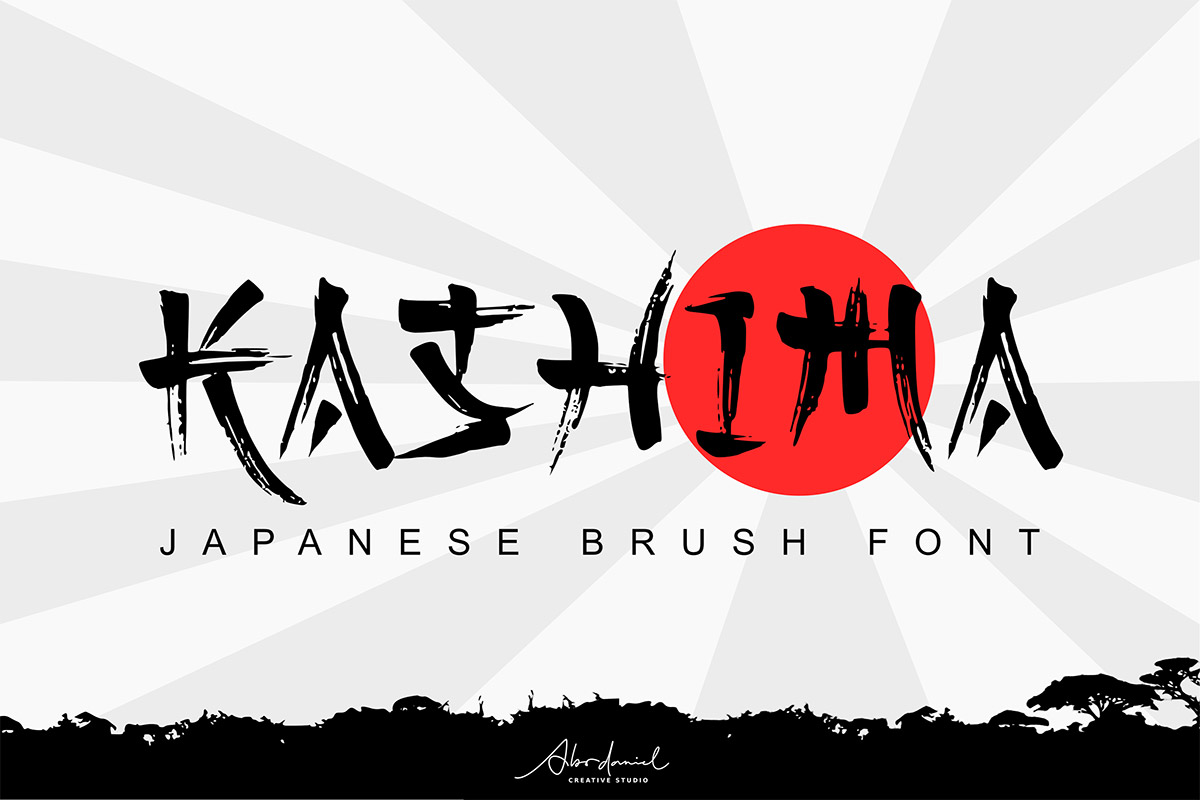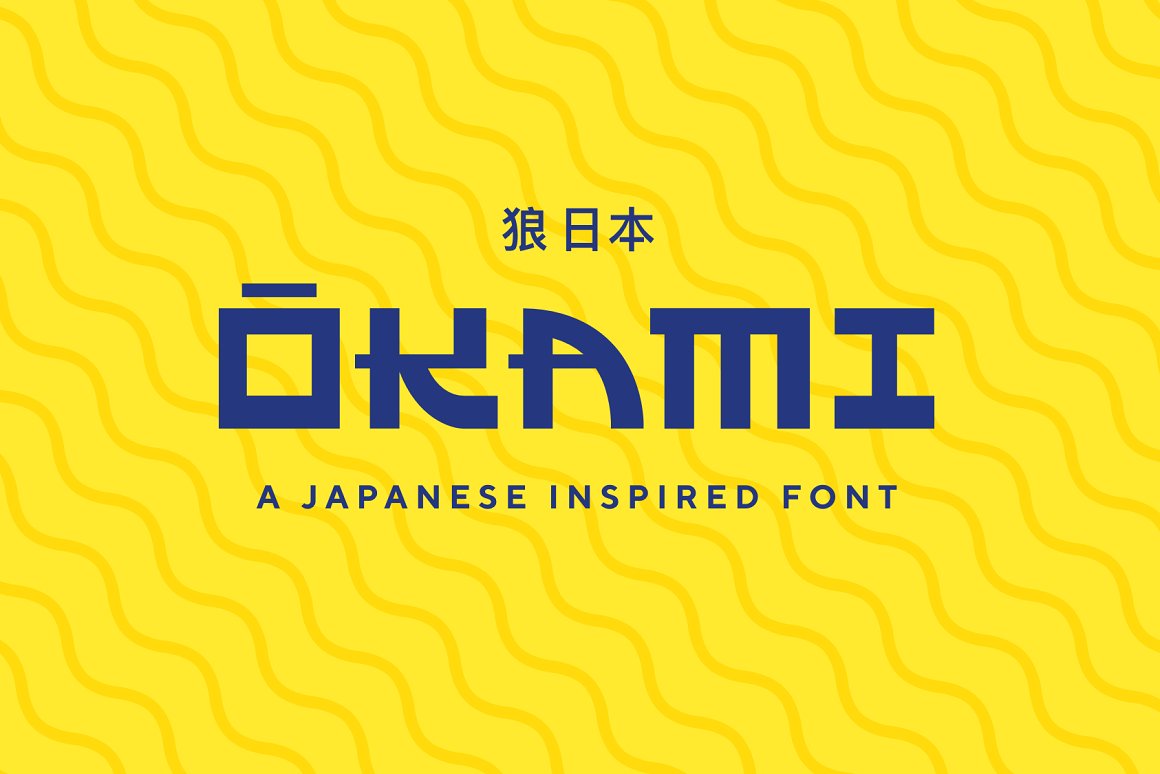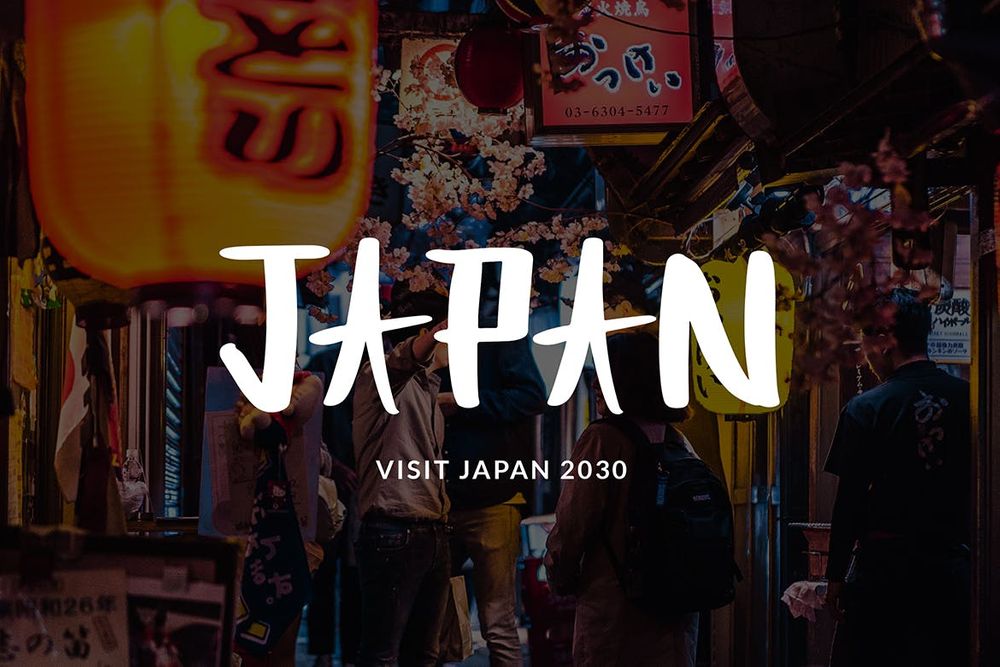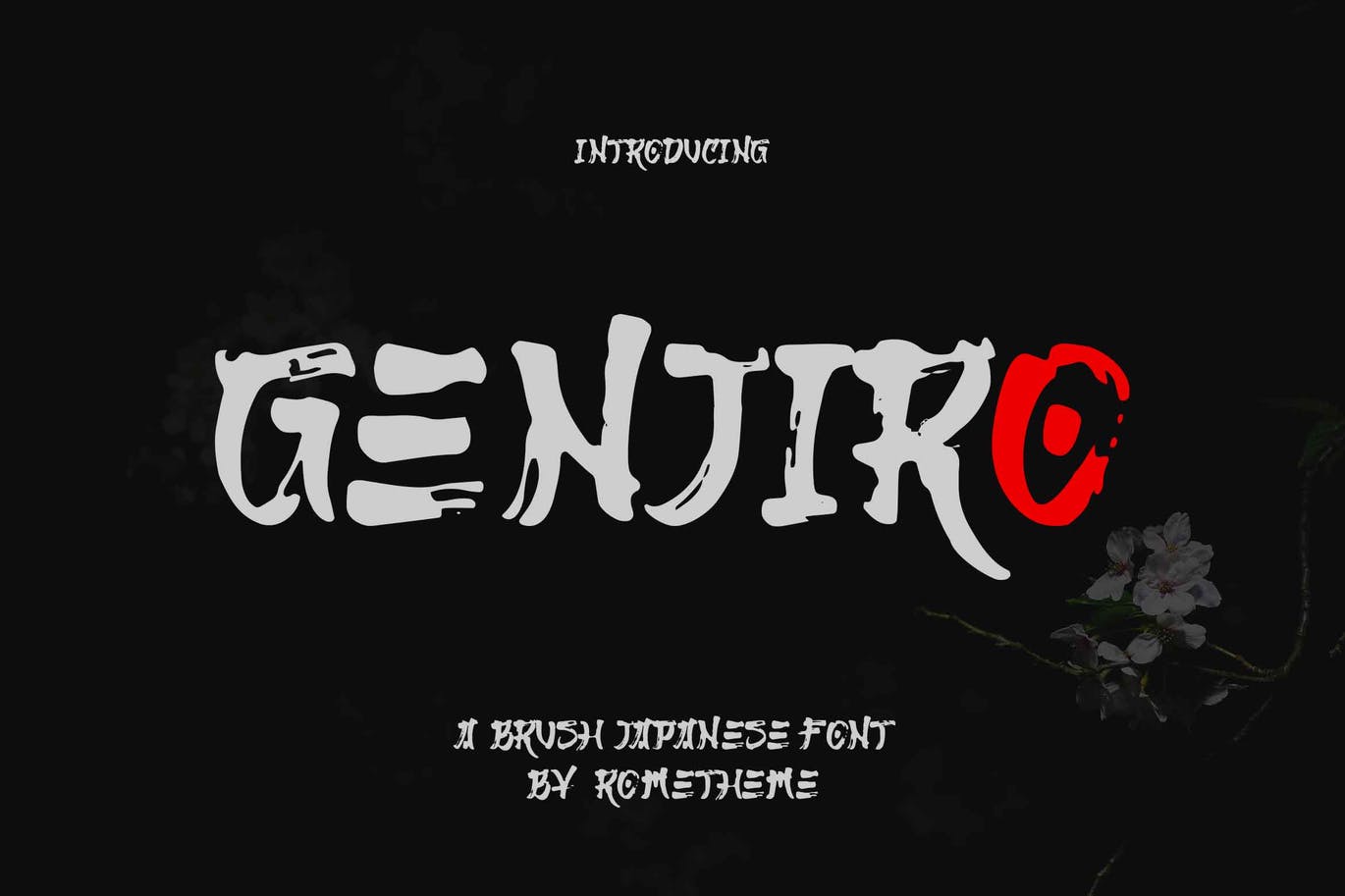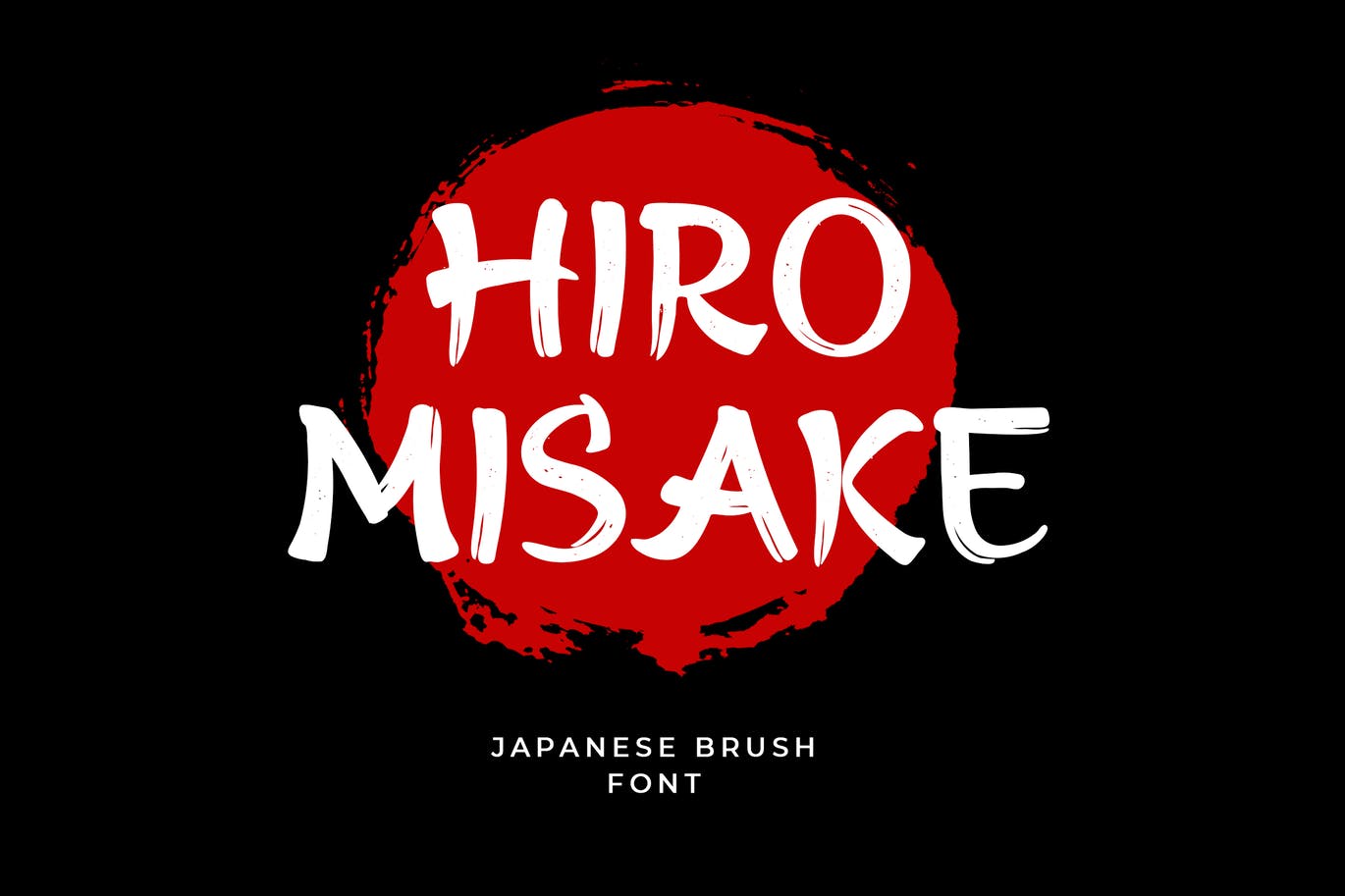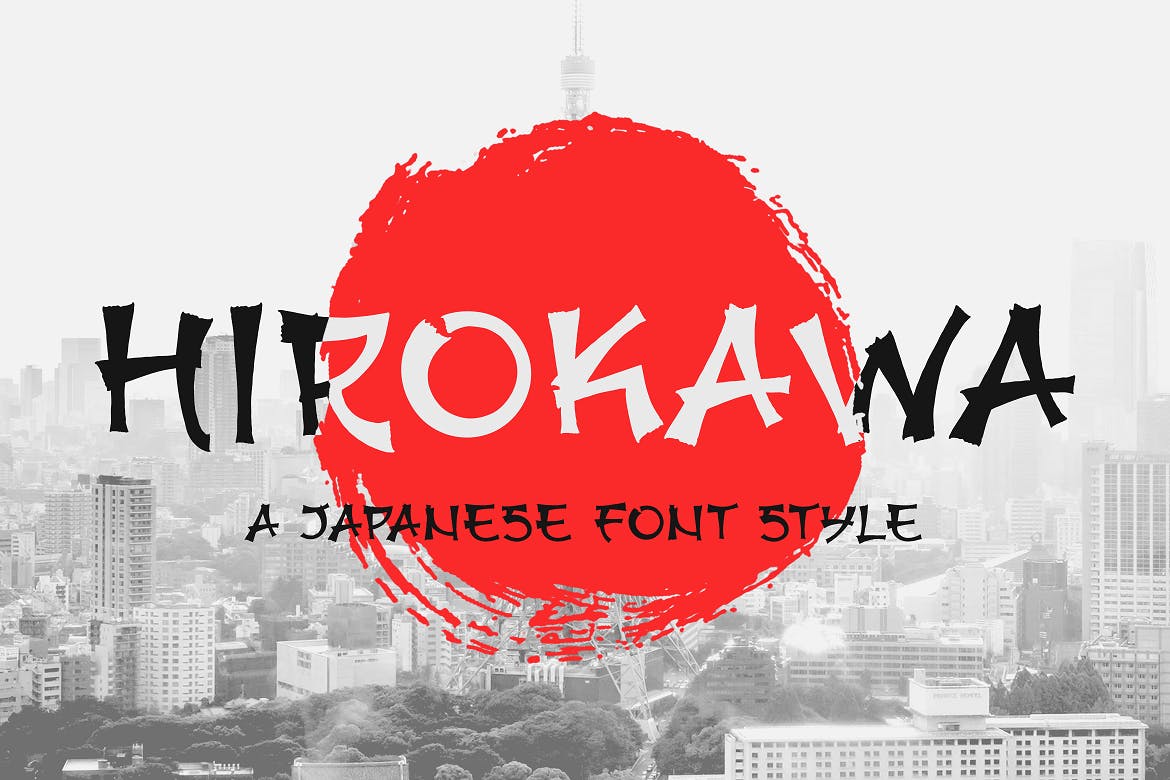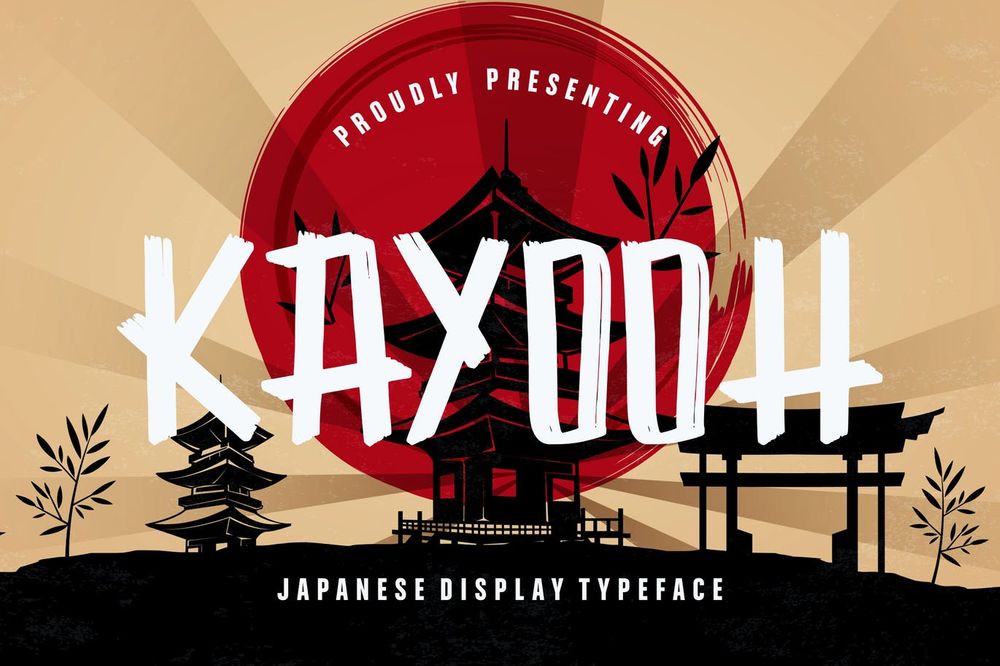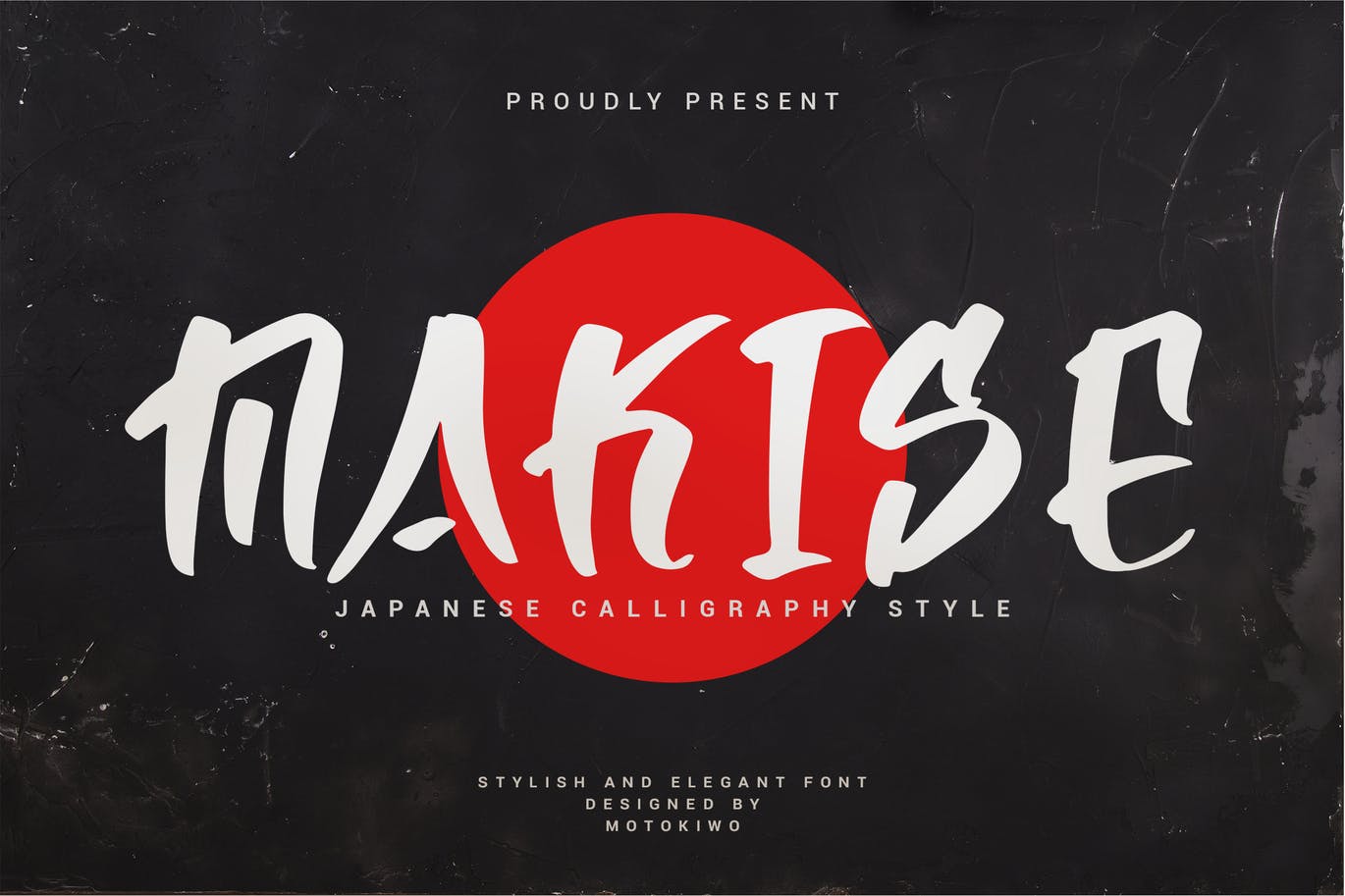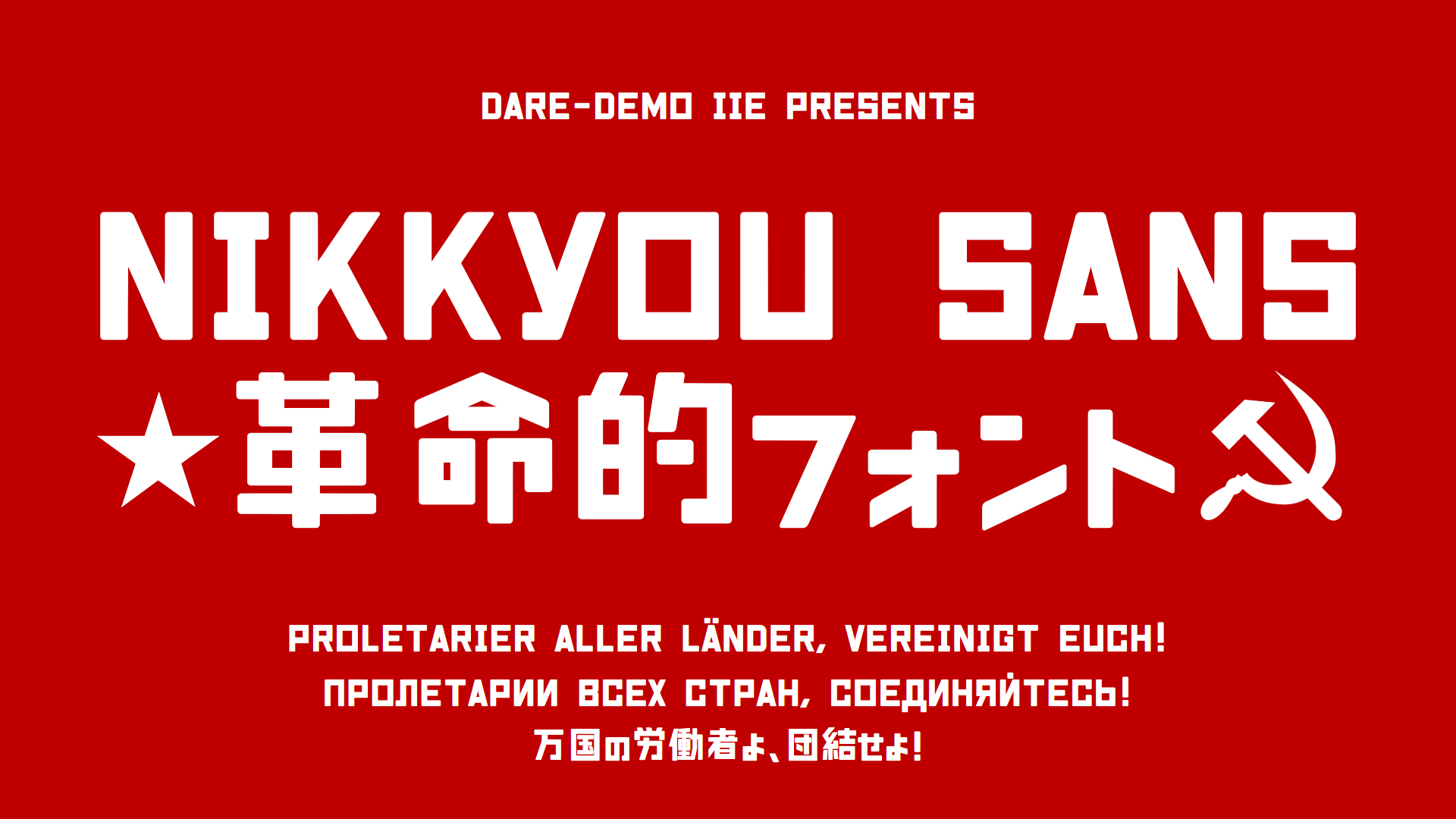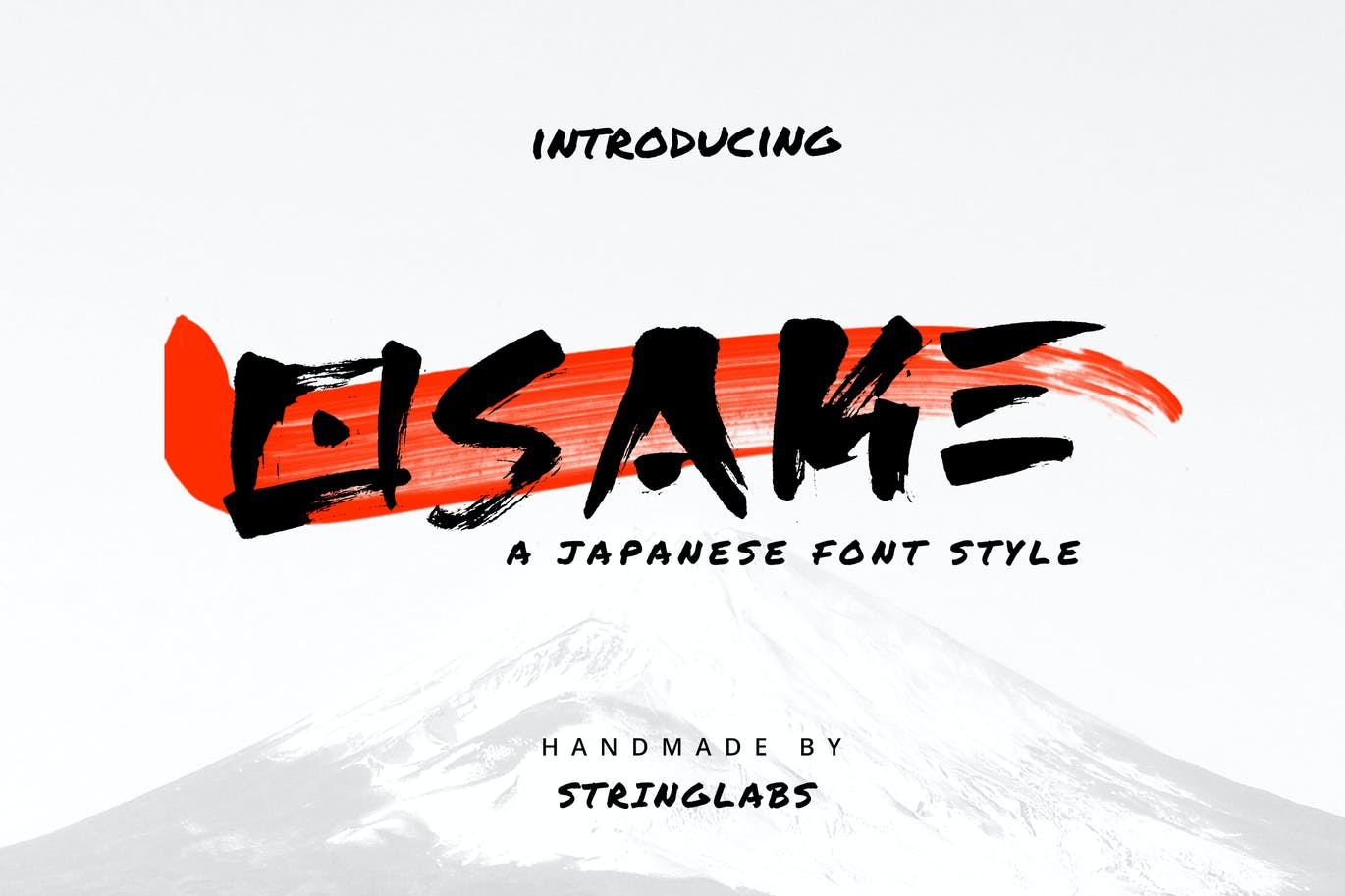
20+ Creative Fonts in Traditional Japanese Style
Outstanding fonts with traditional Japanese feeling is well known free and premium typefaces and never seen before.
these creative Japanese-style fonts are not heroglyphs, but well-designed fonts based on Latin letters. These fonts are compatible with a header, invitation, wedding, asian related designs, display and etc.
Here we have gathered a collection of more as 20 creative fonts that every Japanese people like them without any doubts. So, keep a good mood and enjoy.
Free Arigatou Gozaimasu Font
Free Japanese style font for your special design projects. Perfect for advertisement, logo, poster, flyers and etc. Free for personal and commercial use.
A free typeface like some propaganda posters. Perfect for advertisement, logo, poster, flyers and etc. Free for personal and commercial use.
Nice asian related font with latin letter solution. The best for design projects like logo, poster, flyer, book cover, t-shirt and etc. Free for personal and commercial use.
This free and creative font adds the Japanese style to your designs. For perfect projects like logo, poster, flyer, book cover, t-shirt and etc. Free for personal and commercial use.
An amazing and popular free Japanese style font to create your design with a power. It is great for projects like logo, poster, flyer, book cover, t-shirt and etc. Free for personal and commercial use.
Hirokawa is a handcrafted, elegant font, containing the beautiful Japanese culture within. Use this font on your work, websites, social media, presentations, printed materials and etc.
Osake is a japanese brush font that was made with excellent taste. Combine ethnic and cultural elements in each of the glyphs. Perfect for restaurant, clothing brand, arts, and business purpose related with japanese culture and etc.
It is an all caps font created with natural handwriting brush that designed to be close to Japanese calligraphy style. Makise font very useful for multipurpose projects such as logo, branding, poster, headline and etc.
It is a vintage japanese typeface inspired by handmade lettering. This typeface is ready to use and suitable retro design like for logotype, label, sign painting, badges, poster and etc.
It is a bold and solid display font that has japanese traditional feeling and suit for any japenese style needed like branding projects, logo, wedding designs, social media posts, advertisements, product packaging and etc.
Genjiro is japanese brush font. Fall in love with its incredibly versatile style and use it to create beautiful designs. Perfect for restaurants, branding, logo, posters, flyers, advertisement and etc.
It is a unique and extraordinary display font that will make any japanese-themed design amazing. Best for branding projects, logo, t-shirt designs, book cover design, social media posts, advertisements, product packaging and etc.
It is a brush font with a Japanese style that made using the real brush pen. It looks very natural. This font is great for apparel, branding, logo, magazine, quotes, packaging, advertising and etc.
Info / Download SourceSunrize / Faux Japanese Font
It took the shape from hiragana alphabet, and twist it to match the latin. The curve, the straight lines, the cross…depict Japanese spirit, which is fast, active, and cute in the same time. Perfect for online games, posters, movie titles, fast food menu, magazine and etc.
Info / Download SourceUngai / Faux Japanese Font
Ungai took katakana shape, and take it to the modern fast world. Font suit perfectly for online games, poster, movie title, fast food menu, magazine, youtube covers, youtube thumbnails, social media page covers and etc.
Info / Download SourceKimono / Japanese Display Typeface
Are you looking for a bold and solid display font that has japanese traditional feeling? Here you come. Kimono font is perfect for traveling, poetry, movie title, book title, brand identity and etc.
Info / Download SourceSAIKYO / Japanese Display Font
This is one of the most identifying font in japanese style. It is perfect for online games, poster, movie title, fast food menu, magazine, youtube covers, youtube thumbnails, social media page covers and etc.
Info / Download SourceMayashi / Brush Script Typeface
A new handbrushed typeface called Mayashi. It is good for signature, logotype, poster, social media, book cover, tshirt design, packaging and etc.
It is a modern uppercase font inspired by contemporary Japanese design and is most suited as a decorative display font. Best suit for apparel, posters, flyers, restaurant menu, logos and etc.
Inspired by traditional Japanese calligraphy, Harukaze is a brush display typeface with a bold and powerful feel. Perfect for typography designs, apparel. t-shirt, posters, flyers and etc.